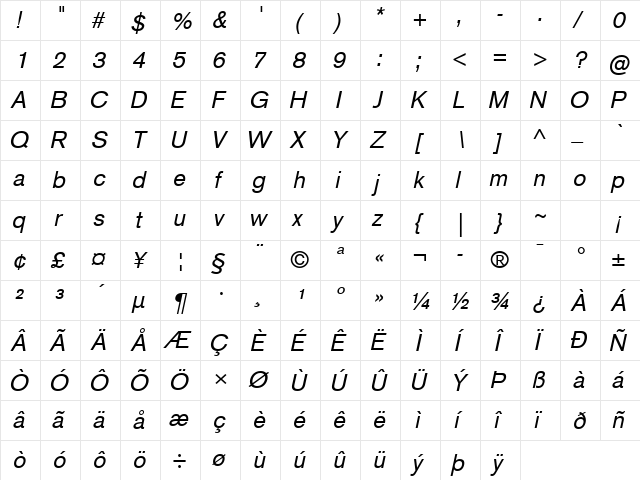
Basic Commercial LT Com Italic
Design Context for Basic Commercial LT Com Typeface
Basic Commercial LT Com offers clean, dependable letterforms without strong stylistic allegiance, making it a practical choice for designers who need flexibility. Its italic angle brings a sense of urgency and motion to the letterforms. The delicate stroke weight brings airiness and refinement to layouts.
Pro Tip: Try Basic Commercial LT Com for annotation and caption copy alongside an upright companion — the contrast in angle creates a dynamic but ordered typographic system.